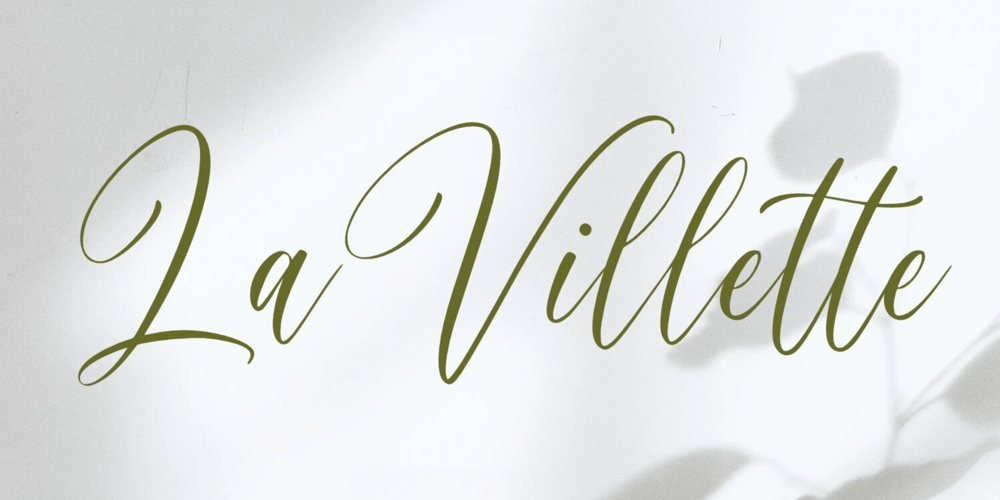
La Villette Font Family was designed by Irpan Maulana and published by Create Big Supply. La Villette contains 1 styles and family package options. Experience the elegance and beauty of La Villette, a captivating handwriting script font that adds a touch of sophistication to your designs. With its flowing calligraphy writing style, La Villette offers a seamless and graceful look, making it ideal for logos, labels, magazines, books, greeting cards, packaging, and more.The combination of uppercase and lowercase letters in La Villette creates a harmonious balance, allowing you to achieve a natural and handcrafted feel. Express your creativity and bring a personal touch to your projects with this versatile font.La Villette caters to a global audience with its multilingual support, ensuring that your message resonates with diverse communities. From numbers to punctuation, this font provides a comprehensive set of characters to enhance the legibility and versatility of your designs.Unlock endless possibilities with ligatures, which effortlessly connect letters and bring a seamless flow to your typography. Additionally, La Villette features PUA (Private Use Area) Encoding, granting you access to special characters and glyphs, further expanding your design options.